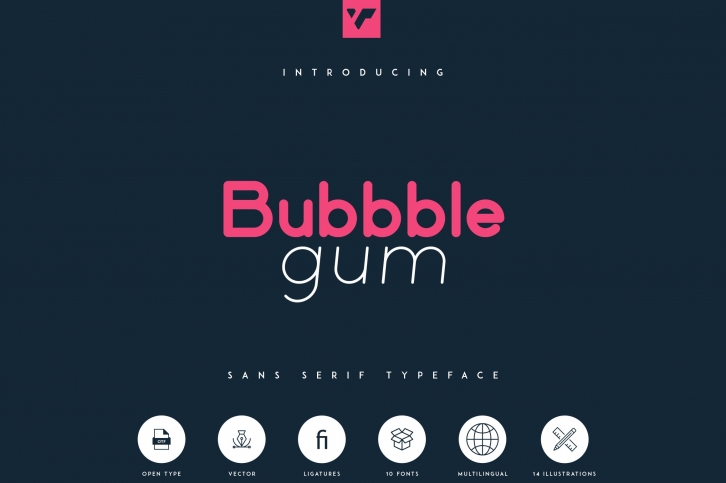
Bubbble Gum is a great font that was designed by VPcreativeshop. Imagine the amount of combinations you can create using this font! The archive is 6.55 MB and it was released on June 29, 2020. Bubbble Gum looks beautiful on wedding invitations, greeting cards, logos, posters, labels, t-shirt designs, logos, business cards and is perfect for use in ink or watercolor works, fashion, magazines, packaging and food menus, children's books and more!